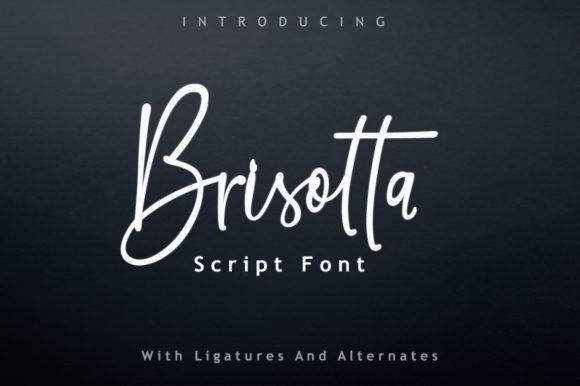
The Brisotta Font: A Cute and Classic Handwritten Style
I still remember the time I was working on a project for a client’s wedding invitation. I had the design all planned out, but I just couldn’t find the perfect font to match the theme. The client wanted something that was both elegant and playful, but I was struggling to find a font that fit the bill. That’s when I stumbled upon the Brisotta font. It was love at first sight! ✨
The Brisotta font is a cute handwritten font that features an incredibly classic style, while still keeping a friendly feel. It’s the perfect font for making original and outstanding designs. In this article, I’ll be sharing my honest review of the Brisotta font, a practical guide on how to use it, and some similar fonts you might want to consider.
My Honest Review of Brisotta Font
- ✅ The Brisotta font has a unique and charming handwritten style that’s perfect for a variety of design projects.
- ✨ The font is highly legible, even at small sizes, making it perfect for body text or captions.
- 🌈 The font comes with a range of OpenType features, including glyphs and stylistic alternates, which allow for a high degree of customization.
While the Brisotta font is an excellent choice for many design projects, there are a few quirks to be aware of. 🤔
- ⚠️ The font may not be suitable for very formal or corporate designs, as it has a distinctly playful feel.
- ⚠️ Some users may find the font a bit too ornate or decorative for certain projects.
The Designer Inspiration Behind Brisotta Font
The Brisotta font was designed with the intention of creating a unique and charming handwritten style that’s perfect for a variety of design projects. The designer aimed to create a font that’s both elegant and playful, with a friendly feel that’s perfect for designs that need a personal touch.
Q: What type of designs is the Brisotta font best suited for?
A: The Brisotta font is best suited for designs that require a personal touch, such as wedding invitations, greeting cards, and social media graphics.